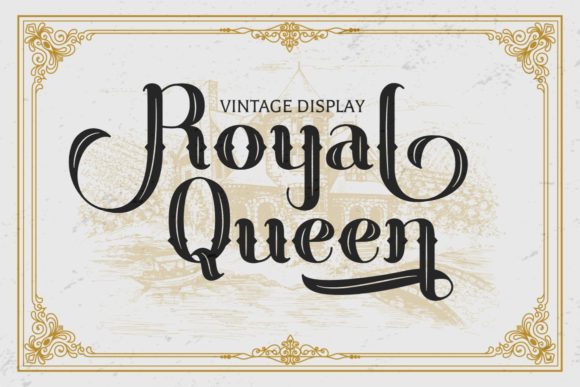
Journey through time with Royal Queen, a font born from nostalgia's embrace. Capture the magic of yesteryears and infuse your designs with a touch of vintage charm. This display font is your gateway to a bygone era, where elegance and whimsy danced together.
With Royal Queen, your designs will exude a sense of familiarity and comfort, as if they've been cherished heirlooms passed down through generations. Its playful curves and delicate serifs evoke a sense of nostalgia that will resonate with your audience.
Imagine your words taking center stage, adorned with the timeless beauty of Royal Queen. Create captivating quotes that dance across your designs, each letter a work of art. This font will transform your words into visual masterpieces, leaving an indelible mark on your audience's hearts and minds.
Royal Queen isn't just a font; it's a storyteller. Its vintage aesthetic will transport your designs to another time, weaving a tale of romance, adventure, and intrigue. Your audience will be captivated by the stories your designs tell, stories that evoke emotions and create lasting connections.
In a world saturated with uniformity, Royal Queen offers a refreshing escape. Its unique personality will set your designs apart, making them stand out from the crowd. Whether you're crafting logos, posters, branding materials, or social media graphics, Royal Queen will infuse your work with a touch of individuality that will leave a lasting impression.
So embark on this nostalgic journey with Royal Queen, and let your designs speak volumes. Embrace the charm of the past and create timeless pieces that will capture hearts and ignite imaginations.